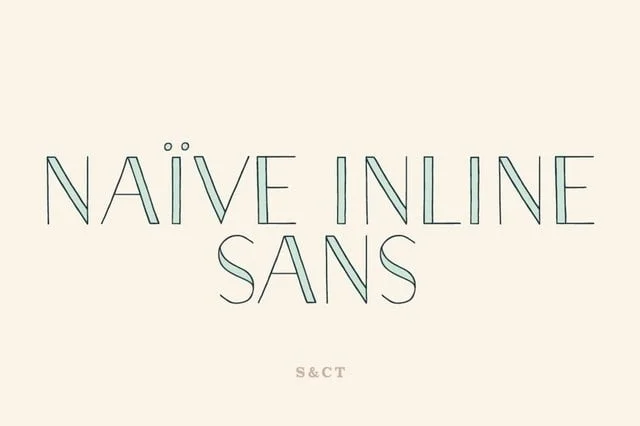
Naive Inline Sans Font
Naive Inline Sans Font is perfect for creative agency branding, artistic portfolios, modern gallery exhibitions, indie music albums, craft brewery labels, boutique fashion brands, contemporary art projects, design studio signage, trendy cafe menus, creative workshop materials, handmade product packaging, and artistic social media graphics.
What makes Naive Inline Sans Font exciting is its charming simplicity that combines hand-drawn authenticity with contemporary design sensibilities through distinctive inline letterforms. This captivating typeface captures the essence of creative spontaneity and artistic expression while maintaining the clarity and functionality required for professional applications. The font's unique inline construction creates visual interest and texture that stands out in crowded design landscapes while preserving the approachable quality that connects with creative audiences. Its distinctive character makes it perfect for brands that want to communicate authenticity, creativity, and human craftsmanship in an increasingly digital world.
The Naive Inline Sans Font family includes regular and bold weights, featuring stylistic alternates, creative variations, and artistic flourishes. The character set incorporates hand-drawn elements, expressive numerals, and unique punctuation marks that enhance the font's artistic character and provide designers with extensive creative typography possibilities.
Whether you're developing artistic brand identities, creating handcrafted marketing materials, or designing creative publications, Naive Inline Sans Font Free Download delivers the authentic charm your artistic projects need. This premium typeface excels in applications where personality and human touch are essential for brand differentiation and emotional connection with creative audiences. The font's handcrafted qualities work beautifully across digital platforms and artisanal print applications, making it an essential tool for designers celebrating creativity and authenticity. Creative businesses and artistic brands choose this font for its ability to communicate genuine craftsmanship while maintaining professional quality and commercial appeal. The comprehensive character support includes international symbols, expanding its usability for global creative applications and multilingual artistic projects. Professional designers appreciate its perfect balance of artistic expression and functional readability, ensuring projects remain both visually engaging and highly effective. When you incorporate this exceptional typeface into your creative communications, you're selecting a typography solution that celebrates human artistry and authentic expression, ensuring your brand resonates with audiences who value creativity, originality, and handcrafted quality in today's mass-produced marketplace while maintaining the artistic credibility essential for success in competitive creative industries.